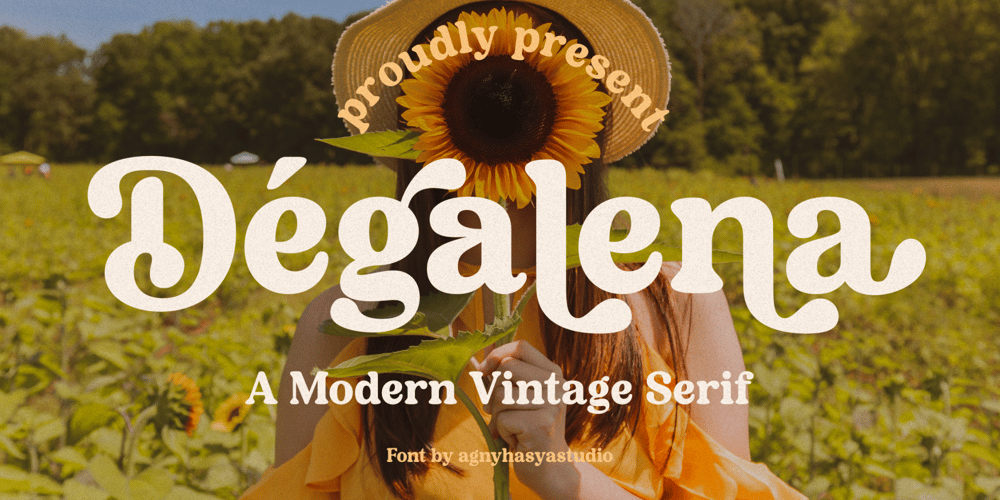
Degalena Font Family was designed by Firman Maulana and published by Agny Hasya Studio. Degalena contains 2 styles and family package options. Degalena is a Modern Retro Vintage Display Font with bold curves, groovy, ’70s ’80s, and ’90s vibes, and unique, beautiful, elegant, and versatile. Come in 2 (two) styles (regular & italic) and is created with glyph variations like alternates and ligatures.Featured with Uppercase and Lowercase, Numeral and Punctuation, Multilingual Support, and Opentype Features.Perfect for your design projects like logos, branding, advertising, product designs, stationery, magazine designs, book/cover title designs, photography, art quotes, wedding designs, fashion designs, special events, labels, product packaging, and more.